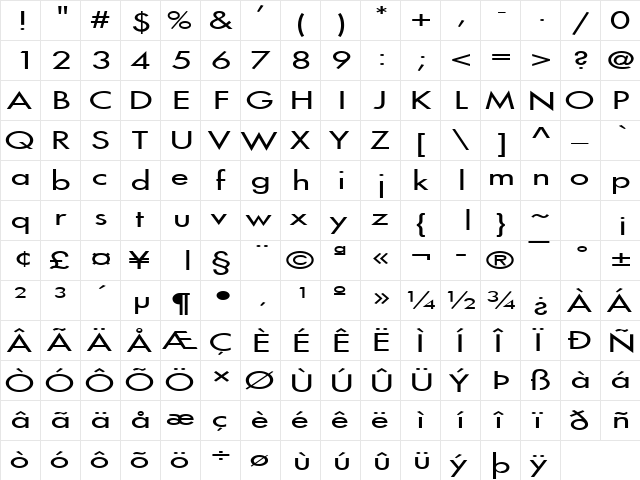
Fusi Extended Normal
Design Context for Fusi Extended Typeface
Fusi Extended offers clean, dependable letterforms without strong stylistic allegiance, making it a practical choice for designers who need flexibility.
Pro Tip: Use Fusi Extended in both headline and body roles to test its range before committing to a single application.